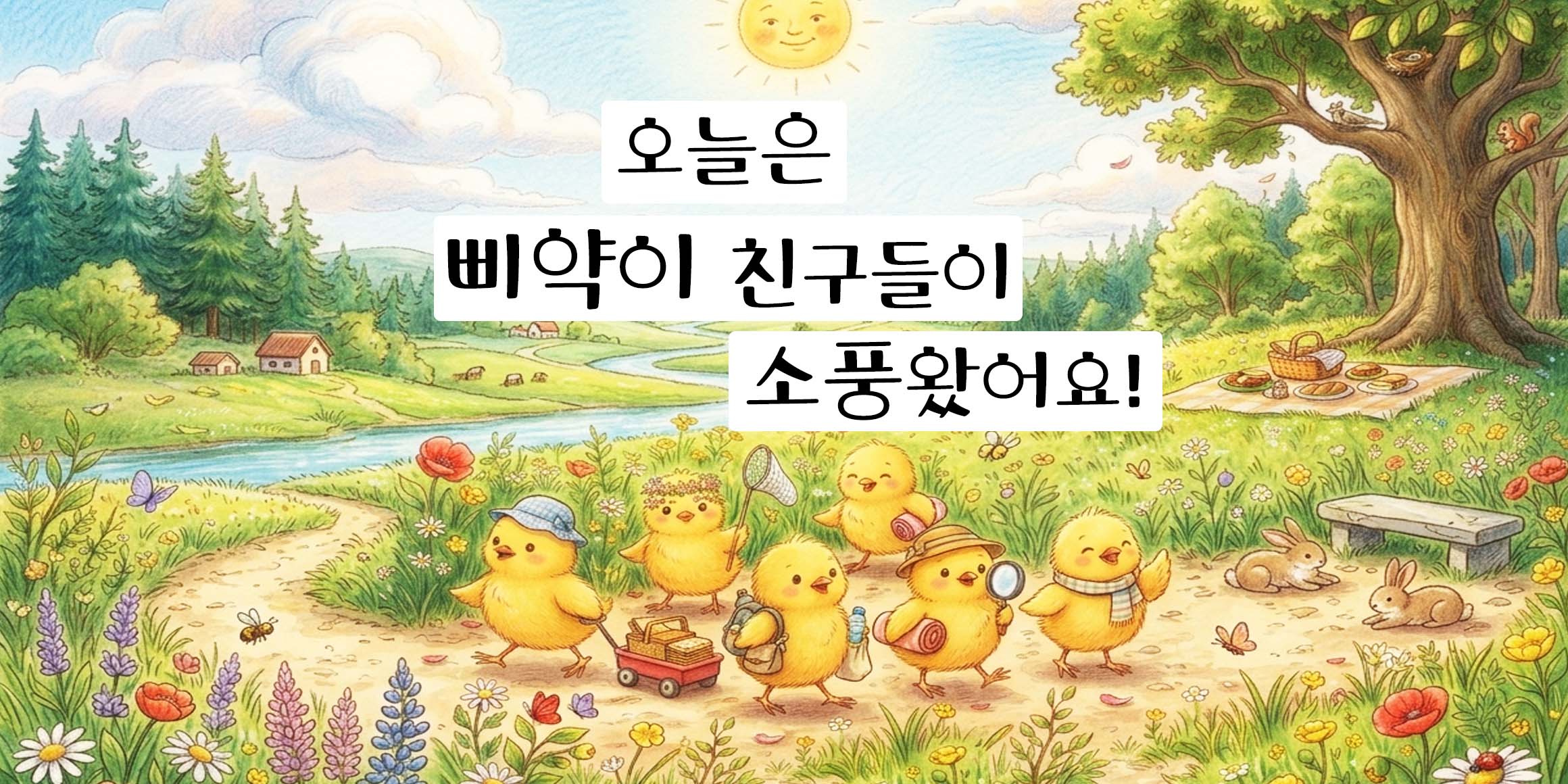
210 Jayunjuui
By using a non-square module, a sense of rhythm was created to express a free and lively feeling.
We added individuality by giving each character a difference in width and height.
It is a font with a soft and free concept, using round serifs and a curved line at the end.